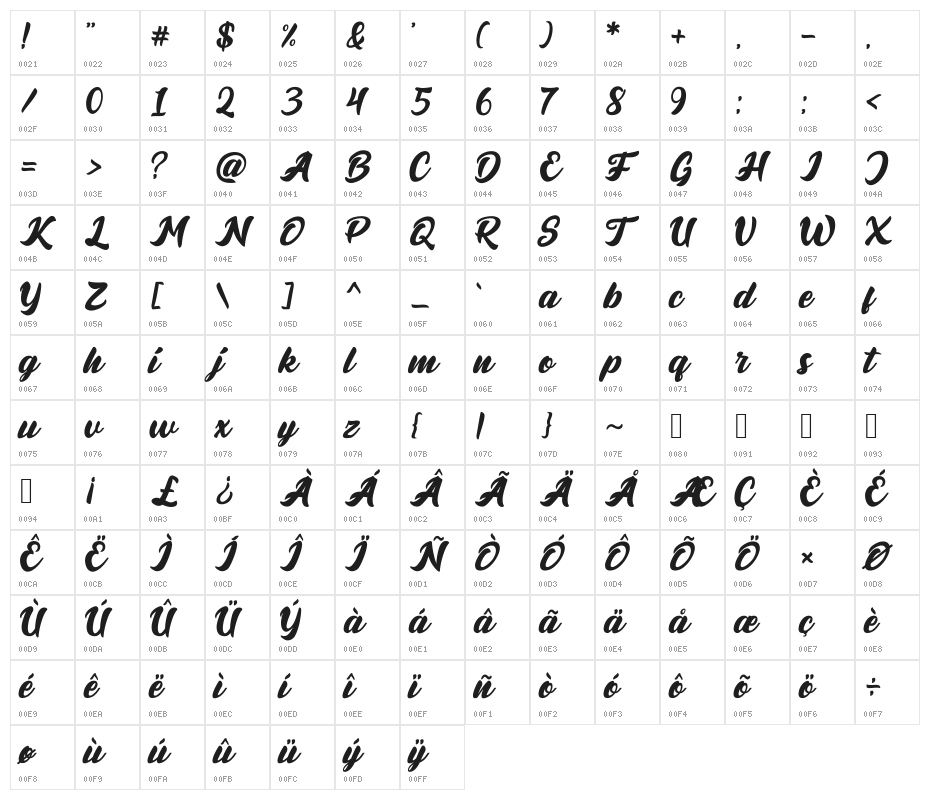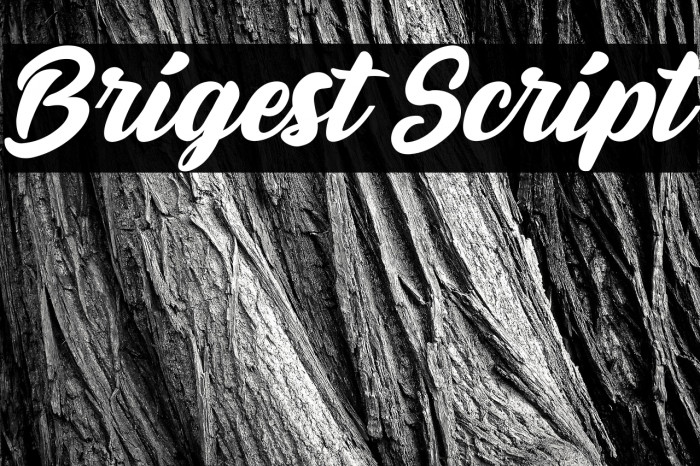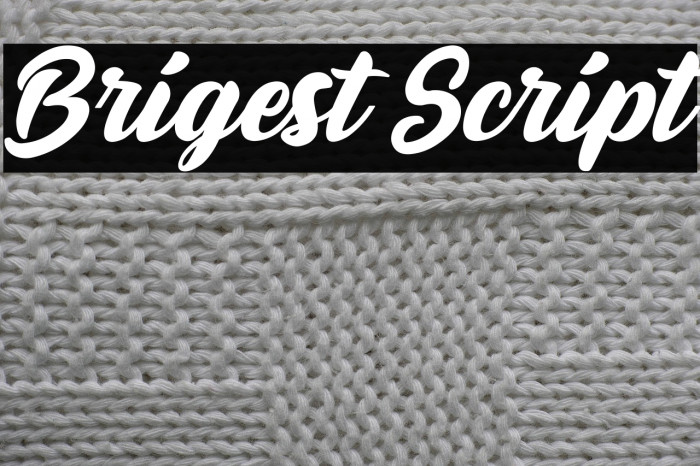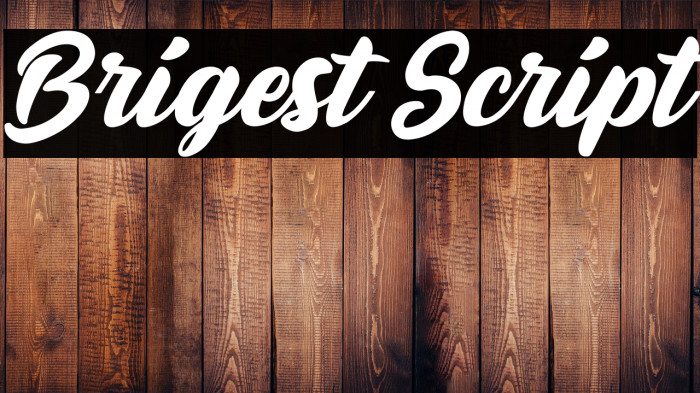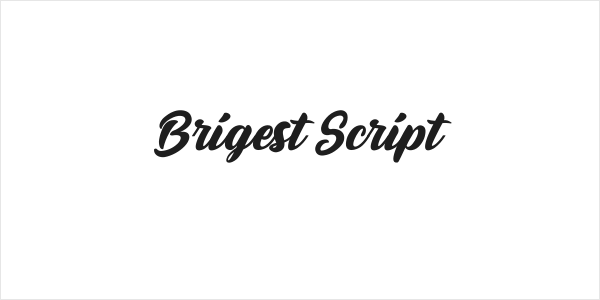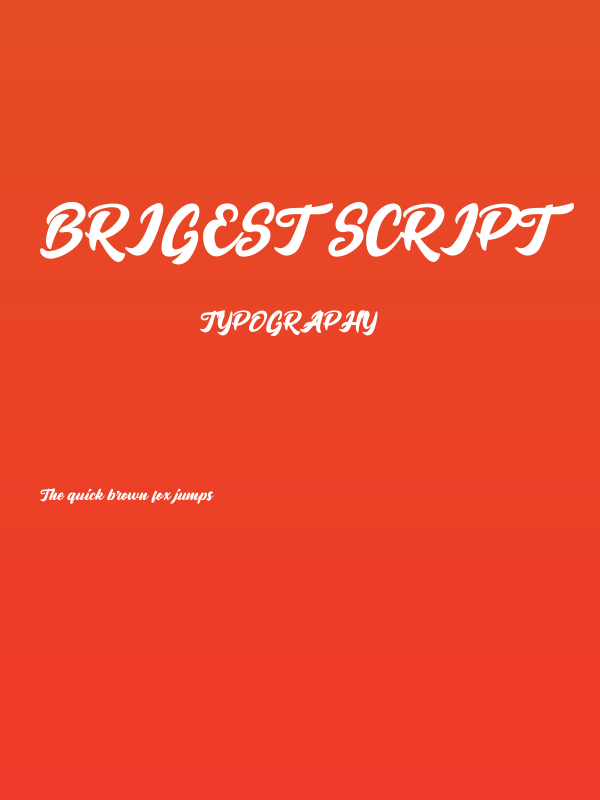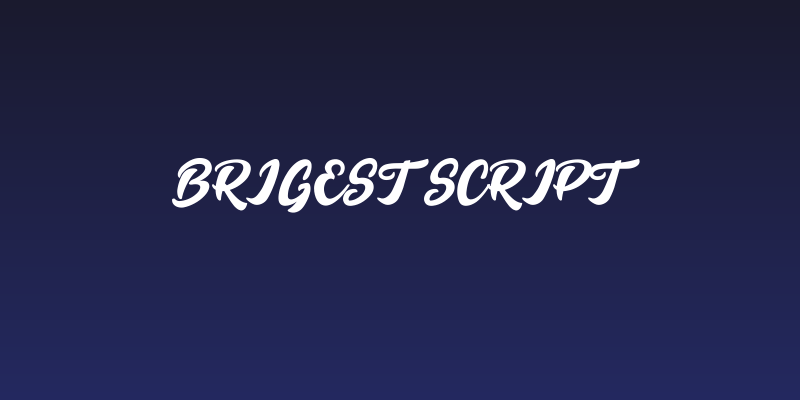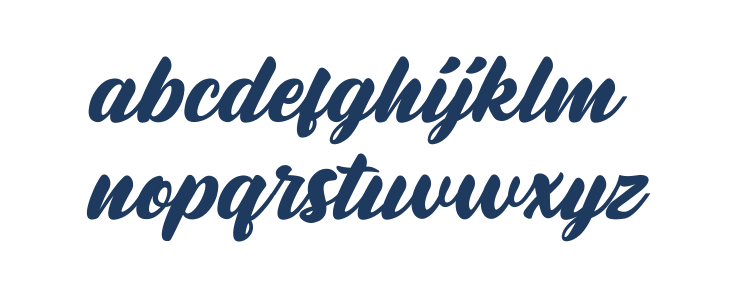
Brigest Script Font
Brigest Script Description
This script font features a bold and flowing style, characterized by its elegant and connected letterforms. The uppercase letters are prominently designed with sweeping curves and a sense of motion, while the lowercase letters maintain a consistent flow, enhancing readability. The numerals and special characters are crafted with the same fluidity, ensuring a cohesive look across all text. The font's overall appearance is both sophisticated and dynamic, making it suitable for a variety of creative applications. Its bold weight and high contrast between thick and thin strokes add to its striking visual appeal.
| Use Case | Logos, Headlines, Invitations |
| Proposed Projects | Ideal for wedding invitations, branding, logo design, and elegant packaging. |